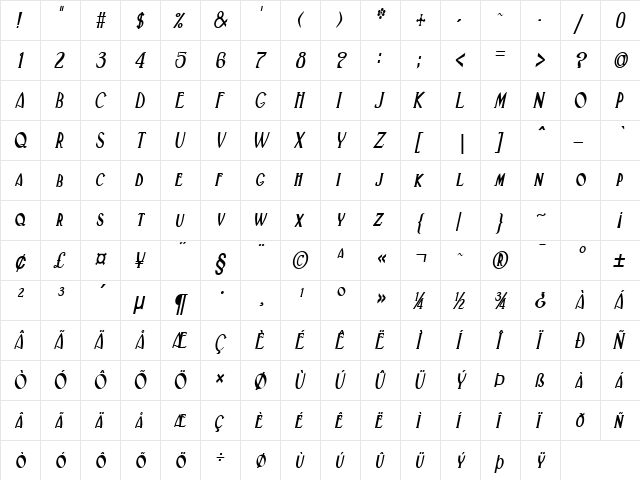
Deco-Condensed Bold Italic Font Preview
Design Context for Deco-Condensed Typeface
Deco-Condensed takes a measured approach to typography — its balanced proportions and neutral character make it a reliable workhorse for both digital and print work. Its italic angle brings a sense of urgency and motion to the letterforms. Its bold stroke weight gives it real presence on the page. Its narrow stance lets it pack a punch even in space-constrained designs.
Pro Tip: Use Deco-Condensed for emphasis, pull quotes, and subheadings where its slanted energy can add rhythm to the layout.